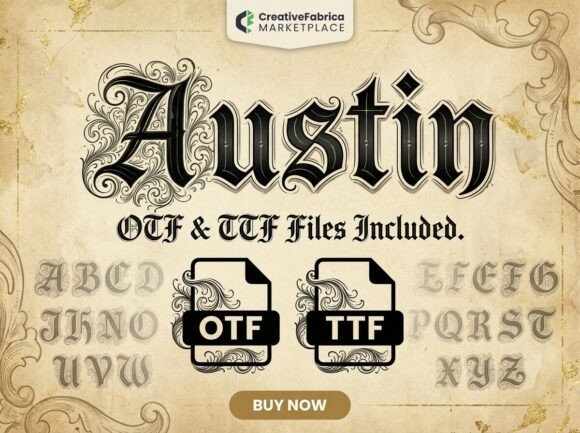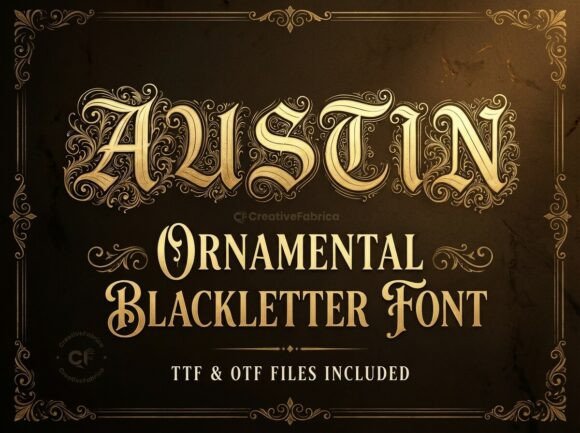
Austin Font: The Ultimate Decorative Display Font for Creative Projects
Are you tired of using the same old fonts for your designs? Look no further than the Austin Font, a stunning decorative display font that’s sure to turn heads. With its unique artistic elements and strong visual personality, this font is perfect for creators who want to break away from the ordinary and make a statement.
What Makes Austin Font So Special?
The Austin Font is a masterpiece of typography, featuring intricate details and creative letterforms that are sure to add an instant “wow” factor to any project. Whether you’re designing a modern poster, a unique brand identity, or eye-catching social media content, this font is the perfect choice. Its versatility is unmatched, making it suitable for bold headlines, artistic logos, and creative packaging, while maintaining a professional and polished finish.
The Austin Font is ideal for a wide range of creative projects, including:
- Poster Design: Create headlines that people can’t look away from. The Austin Font is perfect for designing attention-grabbing posters that will leave a lasting impression.
- Branding & Logos: Build a unique identity for creative businesses. This font is ideal for creating artistic logos that will set your brand apart from the competition.
- Apparel & Merch: Perfect for T-shirts, hoodies, and tote bag designs. The Austin Font adds a touch of personality to any apparel or merchandise.
- Social Media: Make your quotes and announcements stand out in the feed. This font is sure to grab attention and increase engagement on social media.
- Packaging: Give your products a premium feel with the Austin Font. It’s perfect for designing labels, packaging, and other materials that require a touch of elegance.
Key Features of Austin Font
The Austin Font has several key features that make it a must-have for designers and crafters:
- Unique Artistic Elements: The Austin Font features unique artistic elements that set it apart from other fonts.
- Strong Visual Personality: This font has a strong visual personality that’s sure to make a statement.
- Intricate Details: The Austin Font features intricate details that add a touch of elegance to any design.
- Creative Letterforms: The creative letterforms in this font are sure to add a touch of personality to any project.
- Versatile: The Austin Font is versatile enough for use in a wide range of creative projects.
Why Choose Austin Font?
There are many reasons why you should choose the Austin Font for your next creative project:
- Adds an Instant “Wow” Factor: The Austin Font adds an instant “wow” factor to any project, making it perfect for designers who want to make a statement.
- Perfect for Creative Projects: This font is perfect for a wide range of creative projects, from poster design to social media content.
- Professional and Polished Finish: The Austin Font maintains a professional and polished finish, making it suitable for use in high-end designs.
In conclusion, the Austin Font is a stunning decorative display font that’s perfect for creators who want to break away from the ordinary. With its unique artistic elements, strong visual personality, and intricate details, this font is sure to add an instant “wow” factor to any project. Whether you’re designing a modern poster, a unique brand identity, or eye-catching social media content, the Austin Font is the perfect choice. So why wait? Download the Austin Font today and take your designs to the next level!